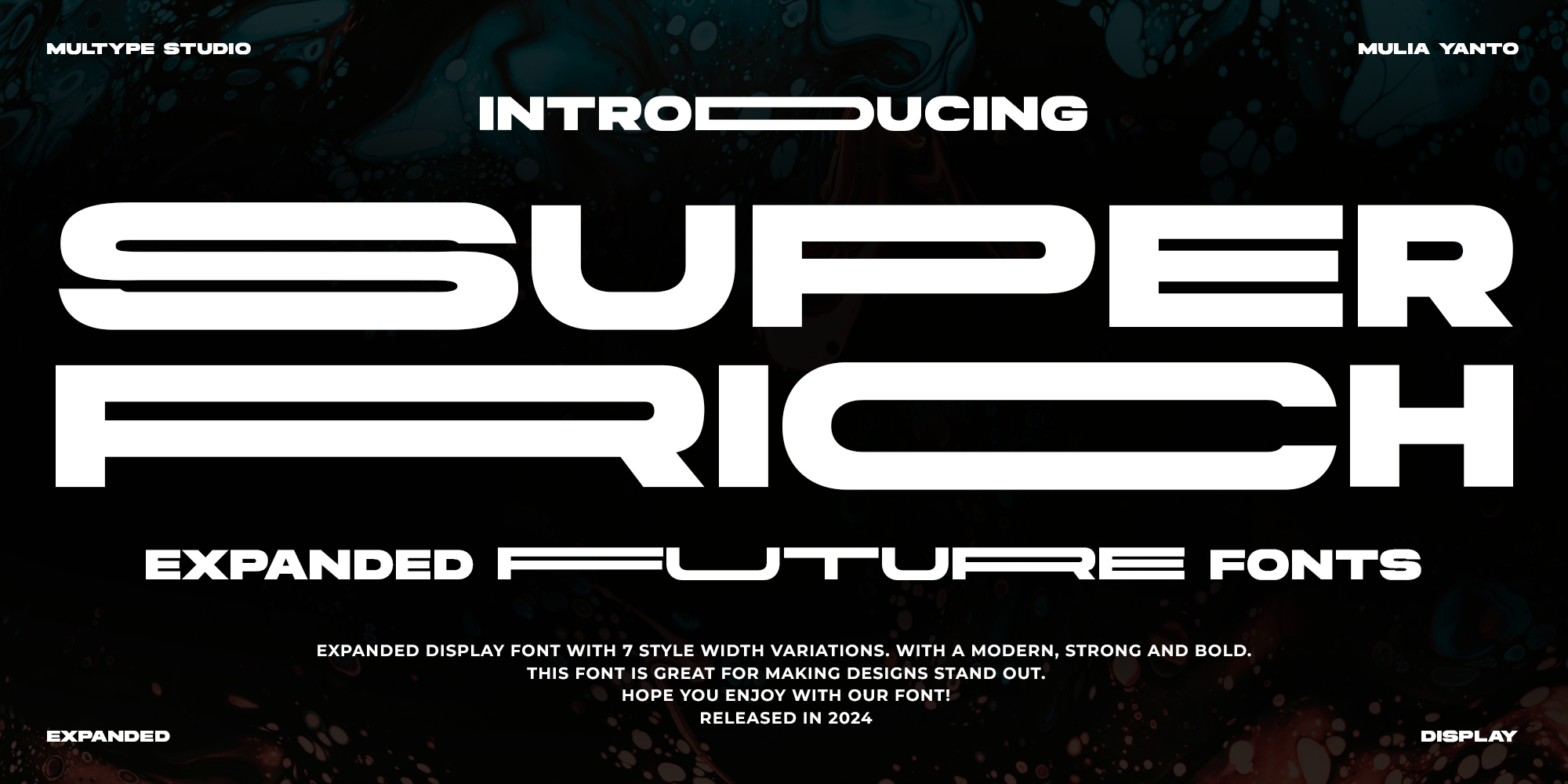
Perfect for luxury brand headlines, high-end fashion campaigns, premium product packaging, exclusive event invitations, upscale restaurant menus, jewelry advertising, luxury real estate marketing, and prestigious corporate communications.
This font is exciting because it radiates opulent sophistication and commanding presence through its bold expanded letterforms, instantly elevating any design to premium luxury status and creating irresistible visual magnetism.
Command absolute attention with Super Rich Expanded Font Free Download, a magnificent typeface that embodies the pinnacle of luxury typography and premium brand communication. This extraordinary font delivers unparalleled visual impact through its bold, expanded letterforms that immediately communicate wealth, success, and exclusive sophistication to discerning audiences who appreciate the finest things in life.
Super Rich Expanded Font features dramatically widened letterforms with commanding proportions that create instant visual dominance and premium appeal. The carefully crafted expanded characters maximize horizontal space while maintaining perfect readability, resulting in headlines and displays that cannot be ignored and immediately establish luxury brand positioning in competitive high-end markets.
The font's exceptional presence makes it indispensable for luxury industries where visual impact directly translates to brand perception and customer desire. Whether you're designing campaigns for exclusive fashion houses that cater to elite clientele, creating marketing materials for luxury automotive brands, or developing promotional content for high-end hospitality venues, Super Rich Expanded Font delivers the prestigious aesthetic that resonates with affluent consumers.
Luxury brands and premium service providers worldwide choose the Super Rich Expanded Font Free Download for projects demanding maximum visual impact and exclusive appeal. The font works brilliantly for private banking institutions targeting wealthy clients, luxury watch manufacturers showcasing precision craftsmanship, exclusive membership clubs promoting elite experiences, and any business seeking to establish premium positioning through commanding typography.
The comprehensive Super Rich Expanded Font family includes weights that maintain the signature expanded character while providing flexibility for creating sophisticated luxury brand systems. Each variation demonstrates meticulous attention to premium design principles, ensuring the commanding presence remains powerful and visually compelling across all applications, from large-scale luxury retail signage to elegant invitation typography.
This typeface excels in applications where creating immediate impressions of wealth and exclusivity is essential for brand success and customer attraction. The expanded letterforms create natural emphasis that eliminates the need for additional design elements, allowing the typography itself to communicate luxury, prestige, and the exclusive lifestyle that premium brands represent.
Super Rich Expanded Font's technical excellence ensures flawless performance across both digital and print applications common in luxury marketing and premium brand communications. The distinctive letterforms maintain their commanding impact when reproduced on various high-end materials, from glossy magazine advertisements to premium packaging that serves as luxury brand ambassadors.
The font represents more than typography—it's a strategic tool for establishing luxury market position and communicating exclusive brand values that attract affluent consumers seeking premium experiences and products.